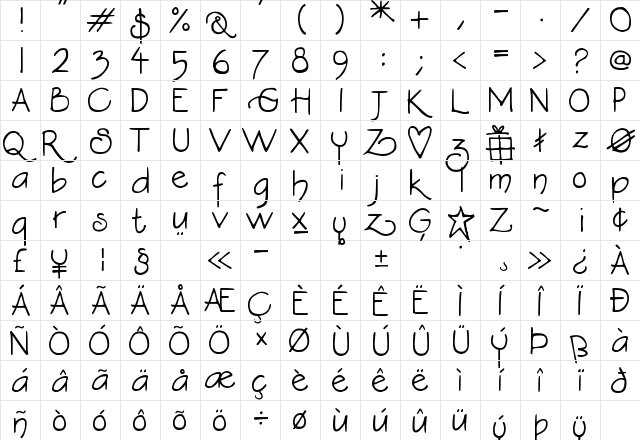
DJB Constance Beauregard Regular
| Designer | Darcy Baldwin (djbfontography) |
Design Context for DJB Constance Beauregard Typeface
DJB Constance Beauregard is a composed and adaptable typeface that performs quietly and consistently across a wide range of design contexts.